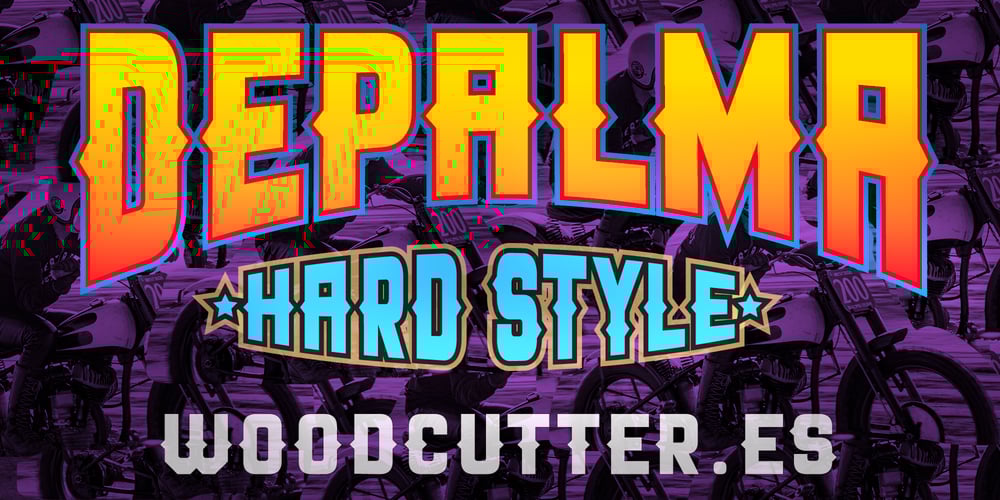
Depalma Font Family was designed by Jordi Manero and published by Woodcutter. Depalma contains 1 styles and family package options. “Depalma” is a typeface with hard, straight letters that exude an inherent aggressiveness, instantly capturing attention. Its sharp, defined contours make it perfect for designs aiming to convey strength and determination. Ideal for logos, headlines, and posters, “Depalma” provides a commanding and robust presence in any project. Its bold and strong style ensures each letter stands out, delivering a powerful and memorable visual impact. With “Depalma,” your designs will acquire a decisive and dominant character, suitable for a variety of creative applications.